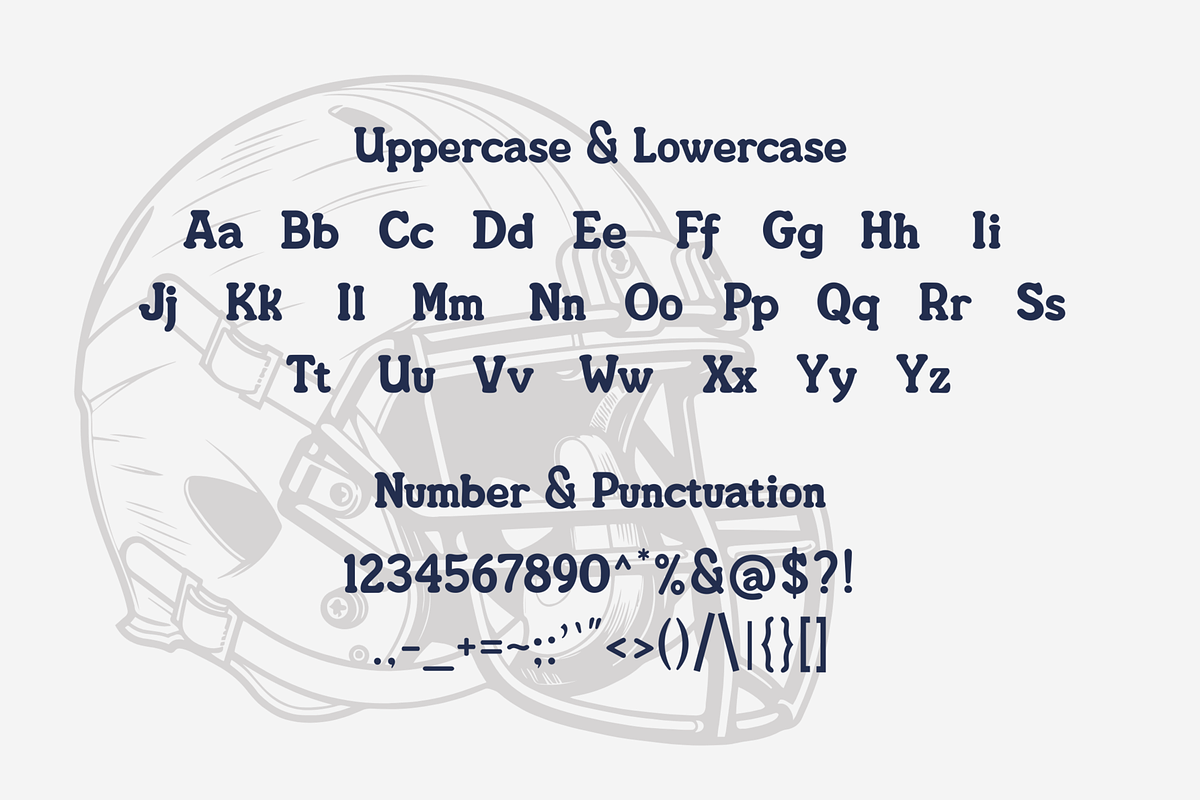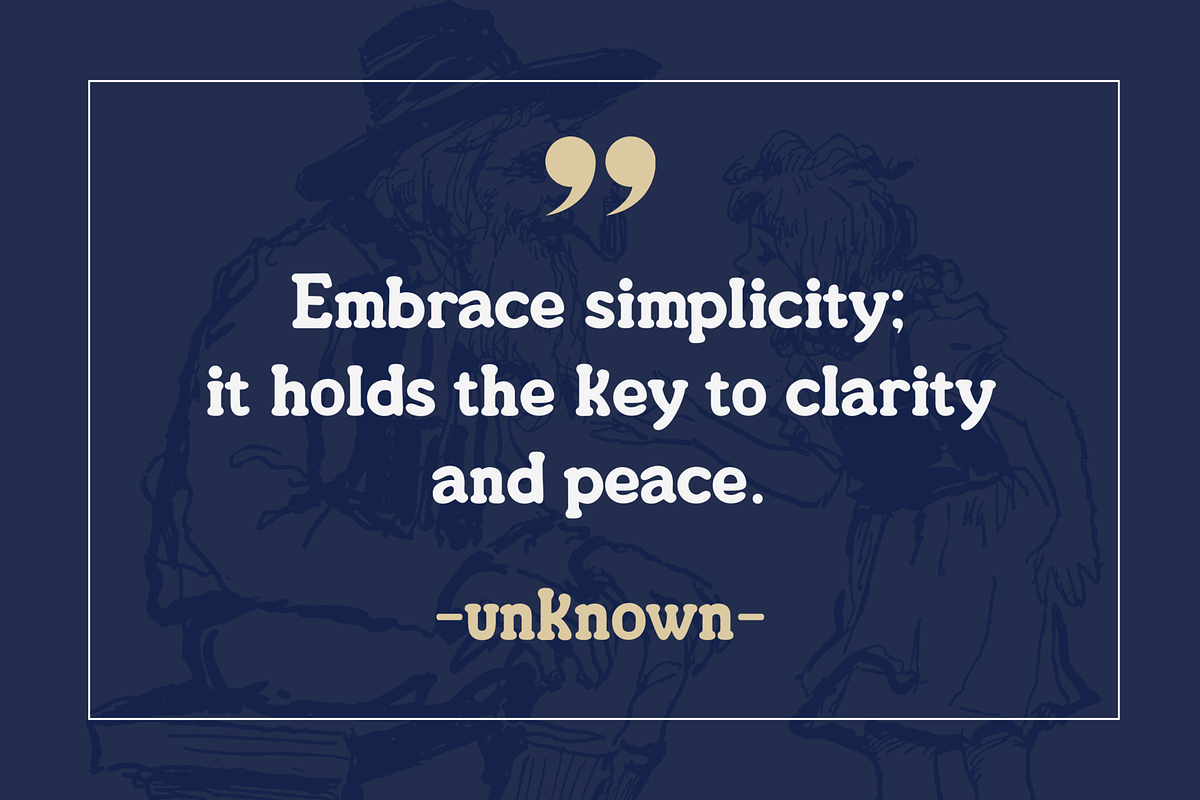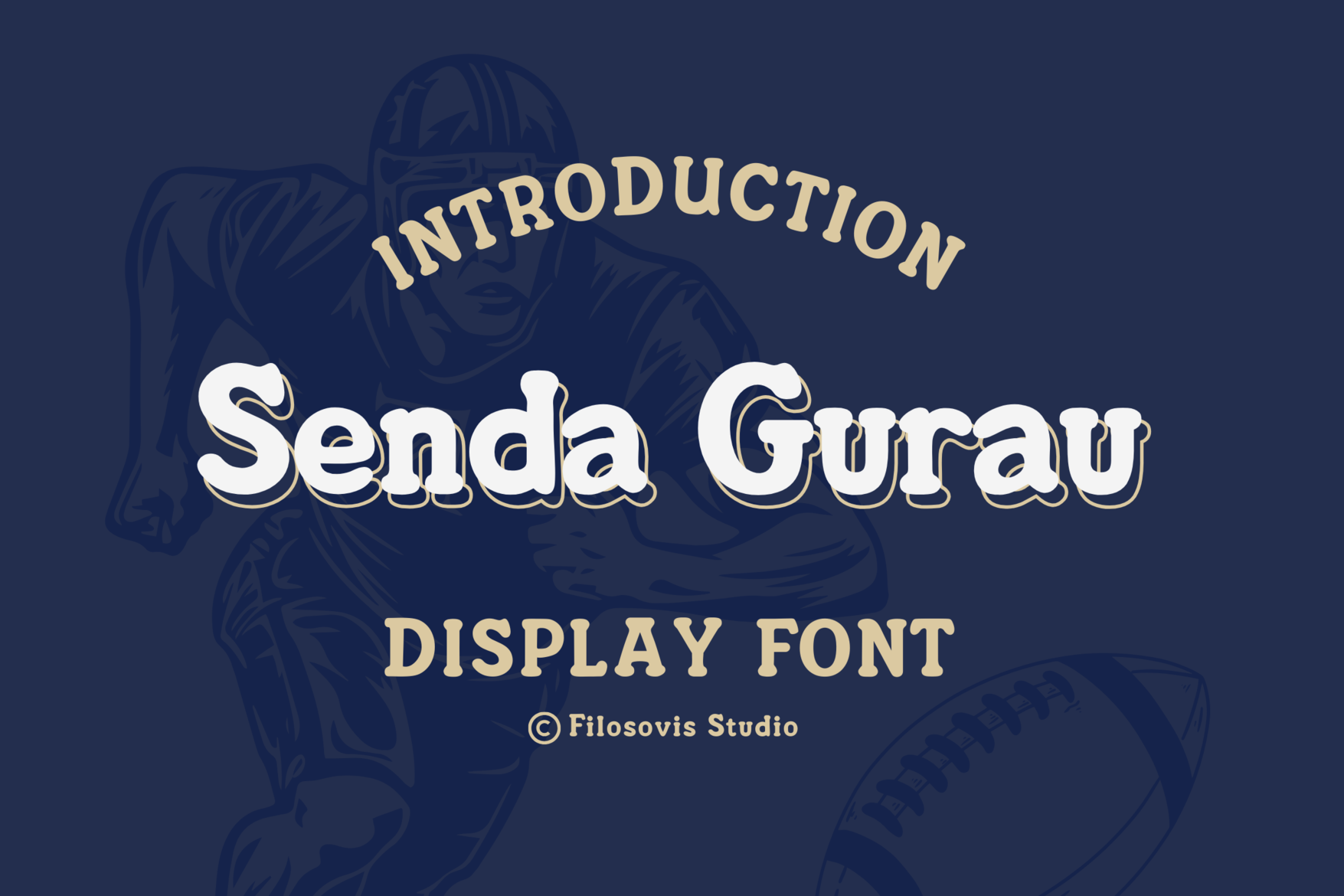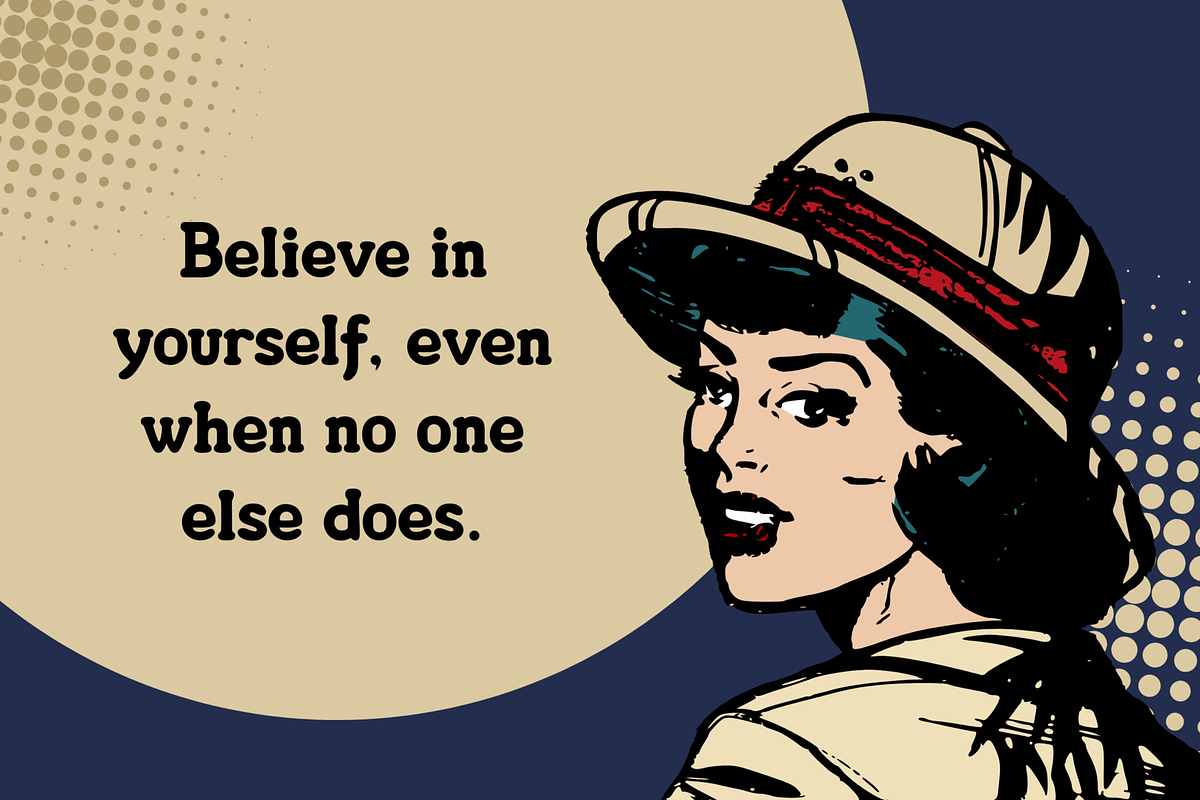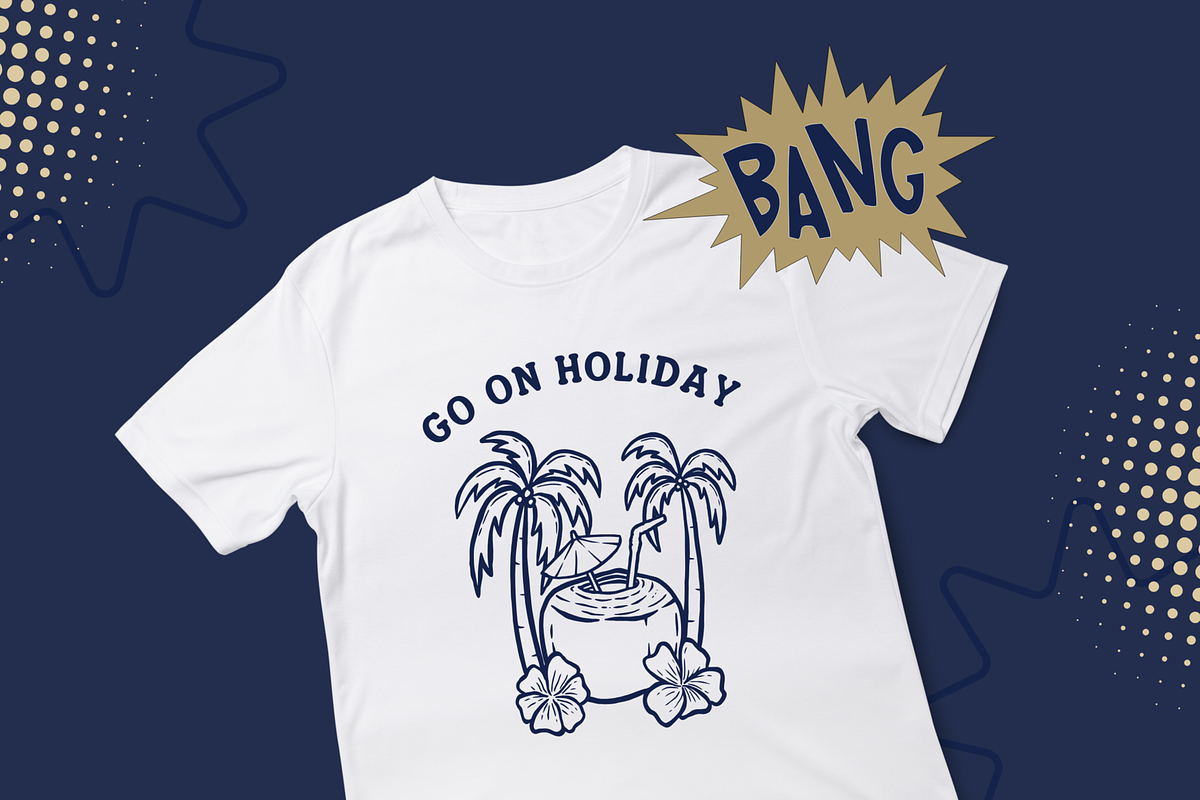
Senda Gurau | Display Font
Senda Gurau is a fun and display font that adds a playful twist to any design. With its whimsical letterforms and unique charm, it's perfect for eye-catching headlines, vibrant posters, and playful branding projects. Infuse your creations with joy and personality with Senda Gurau !
- Uppercase Characters
- Lowercase Characters